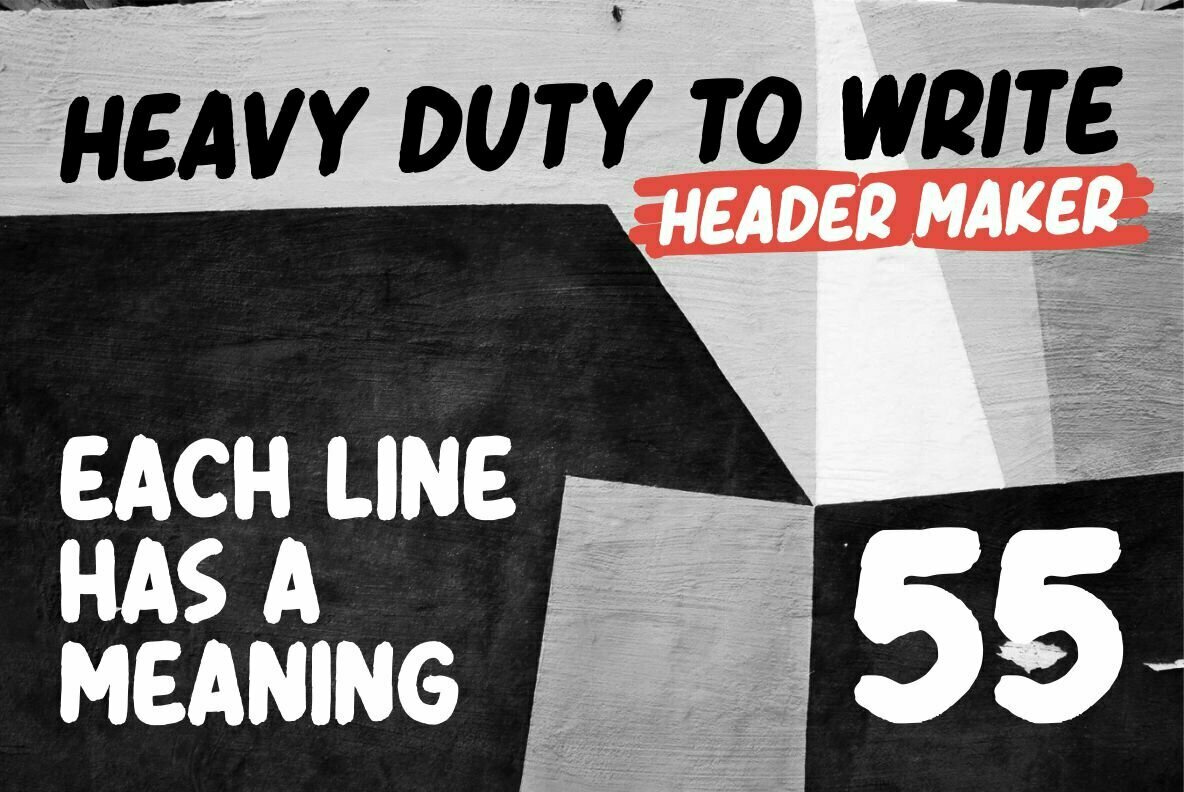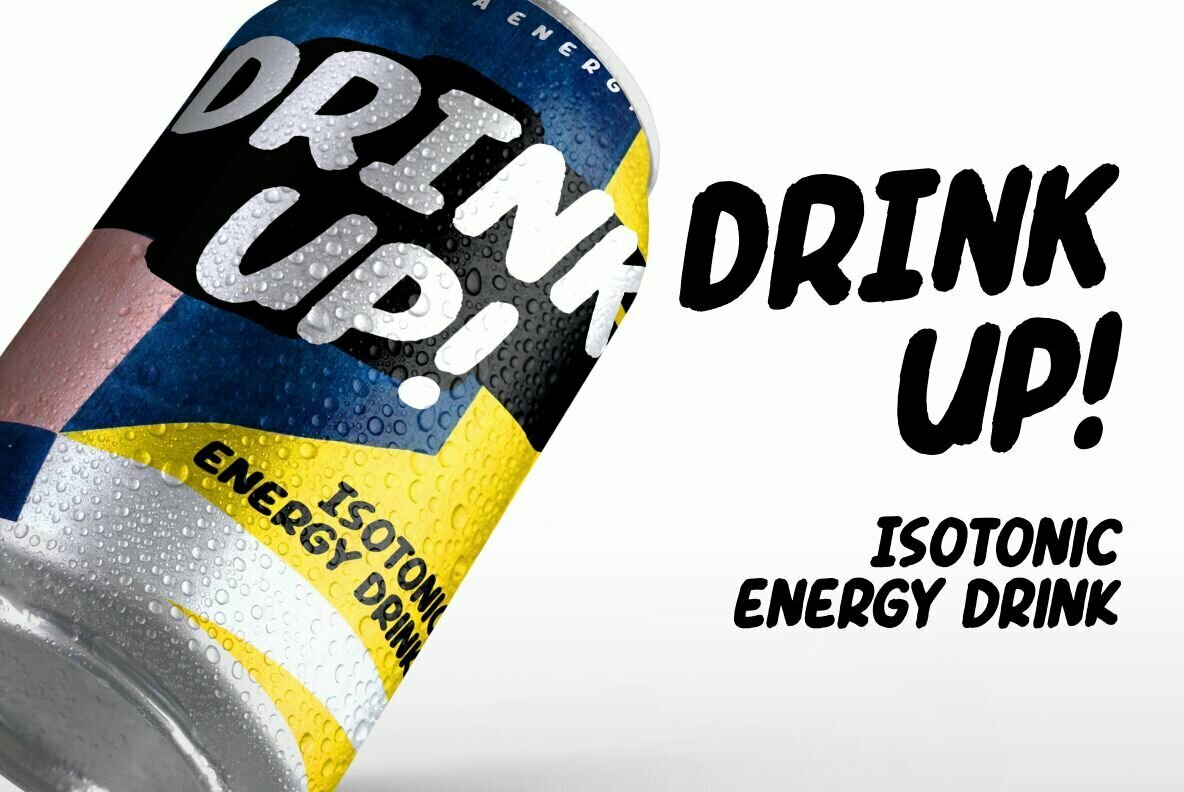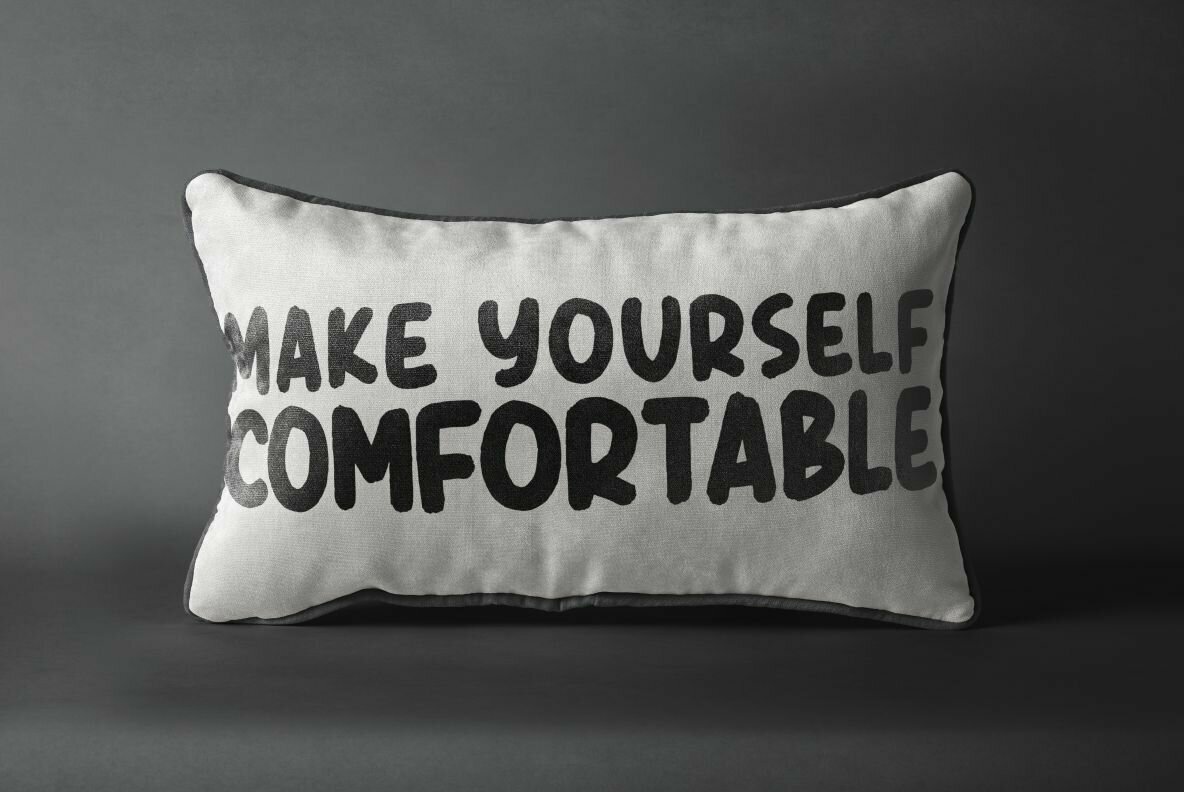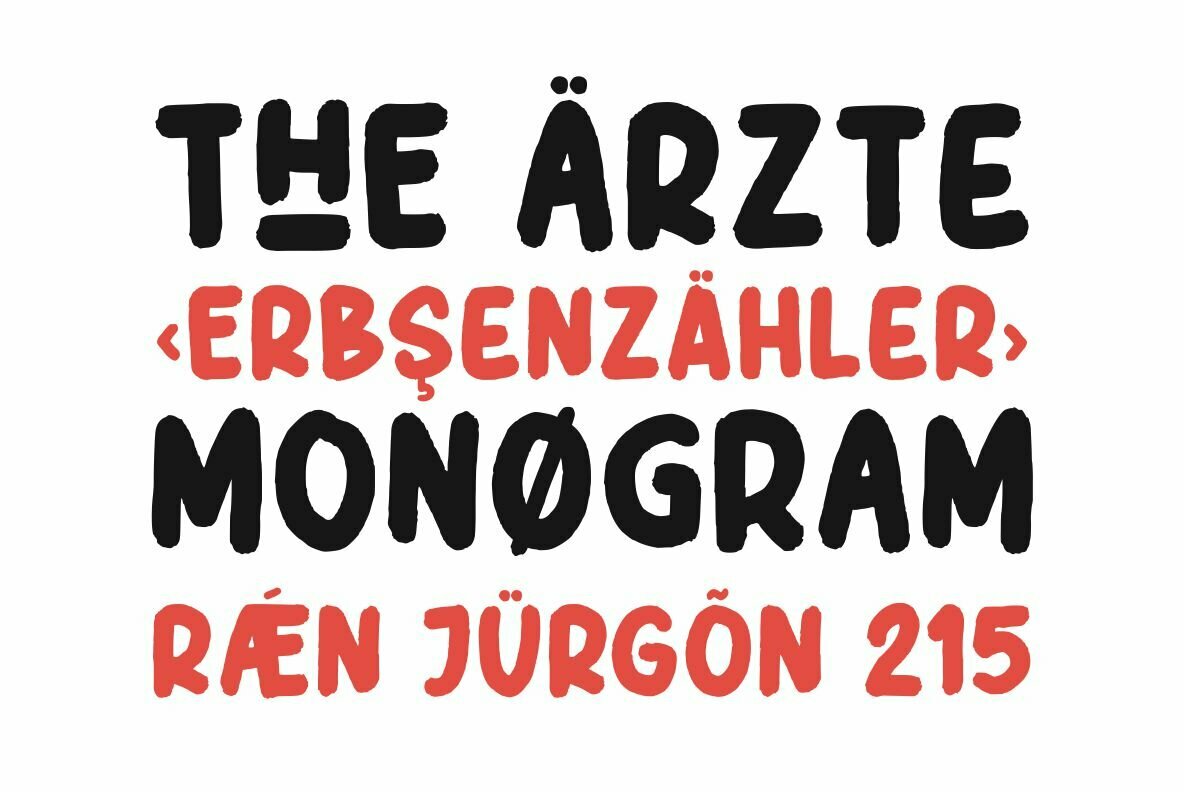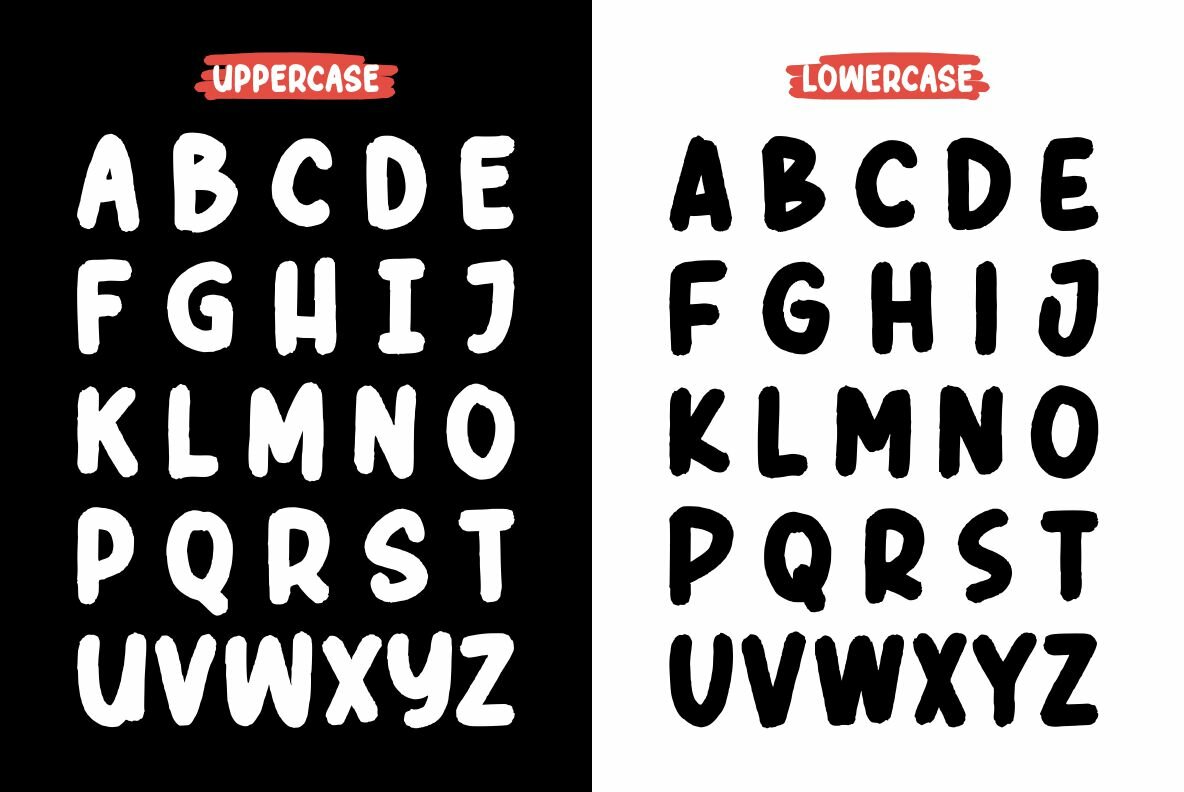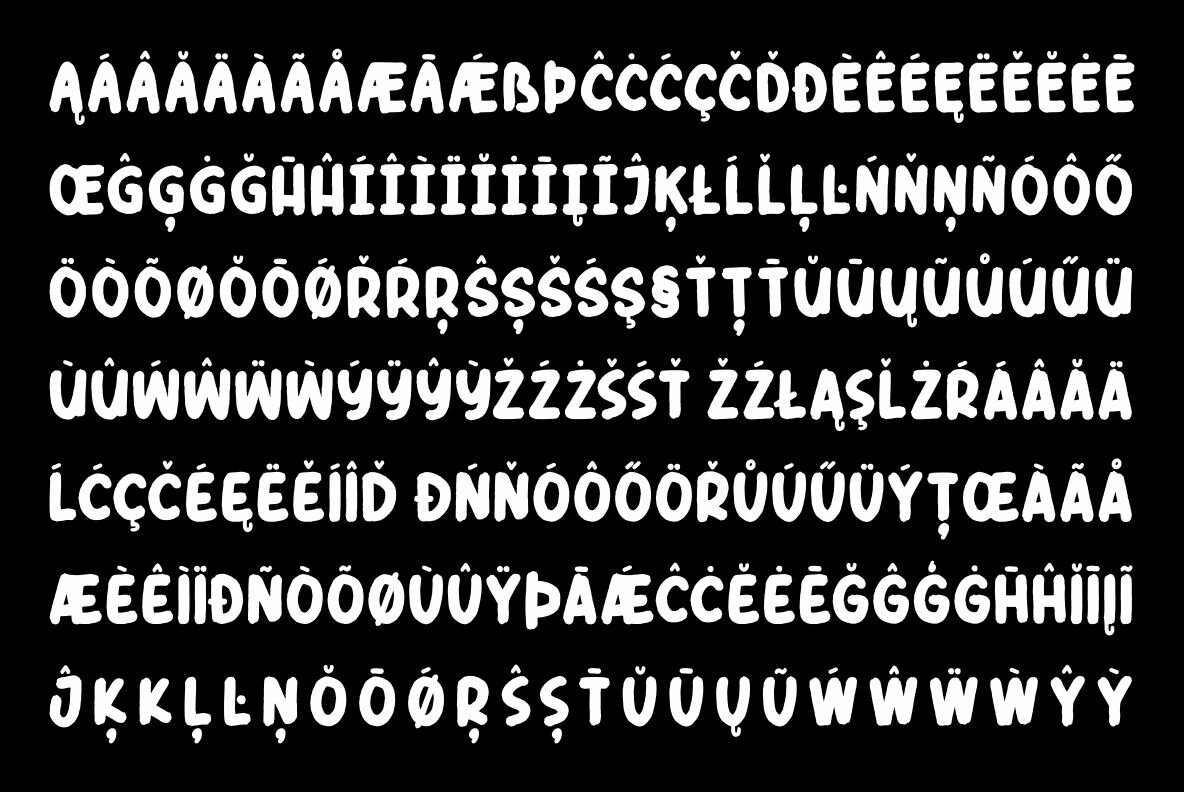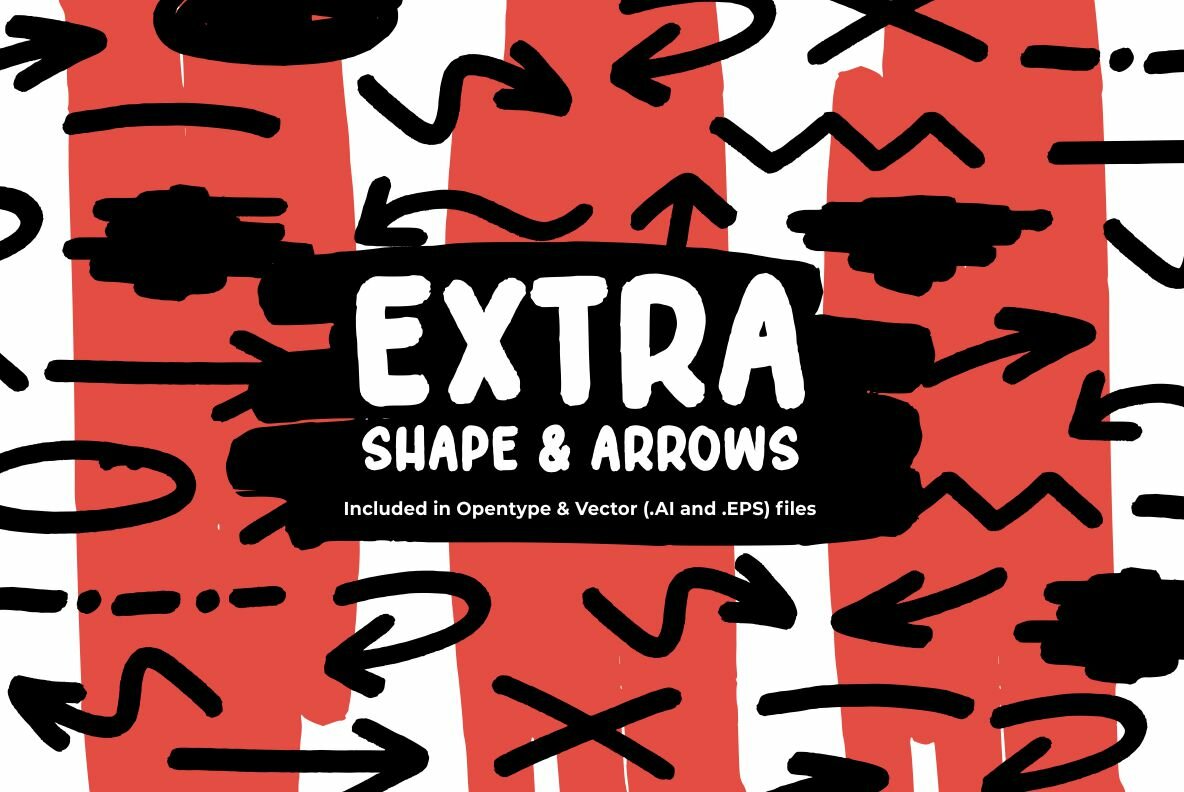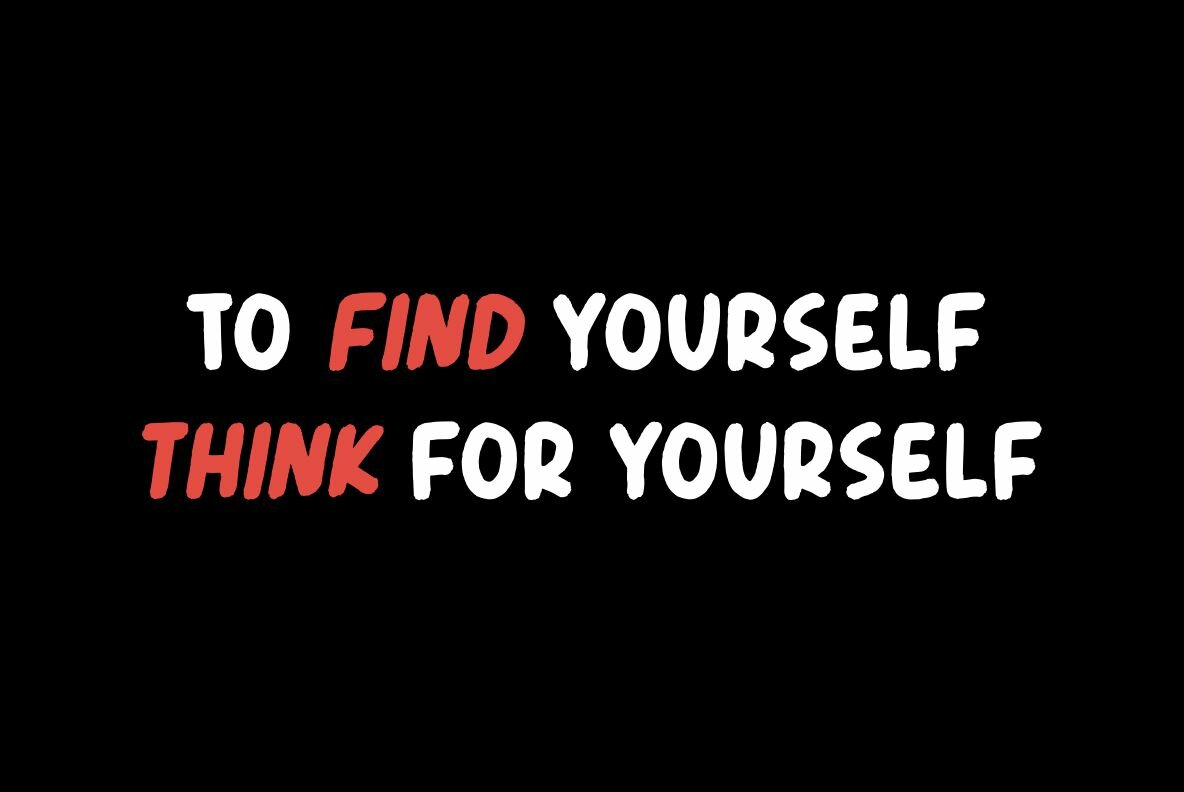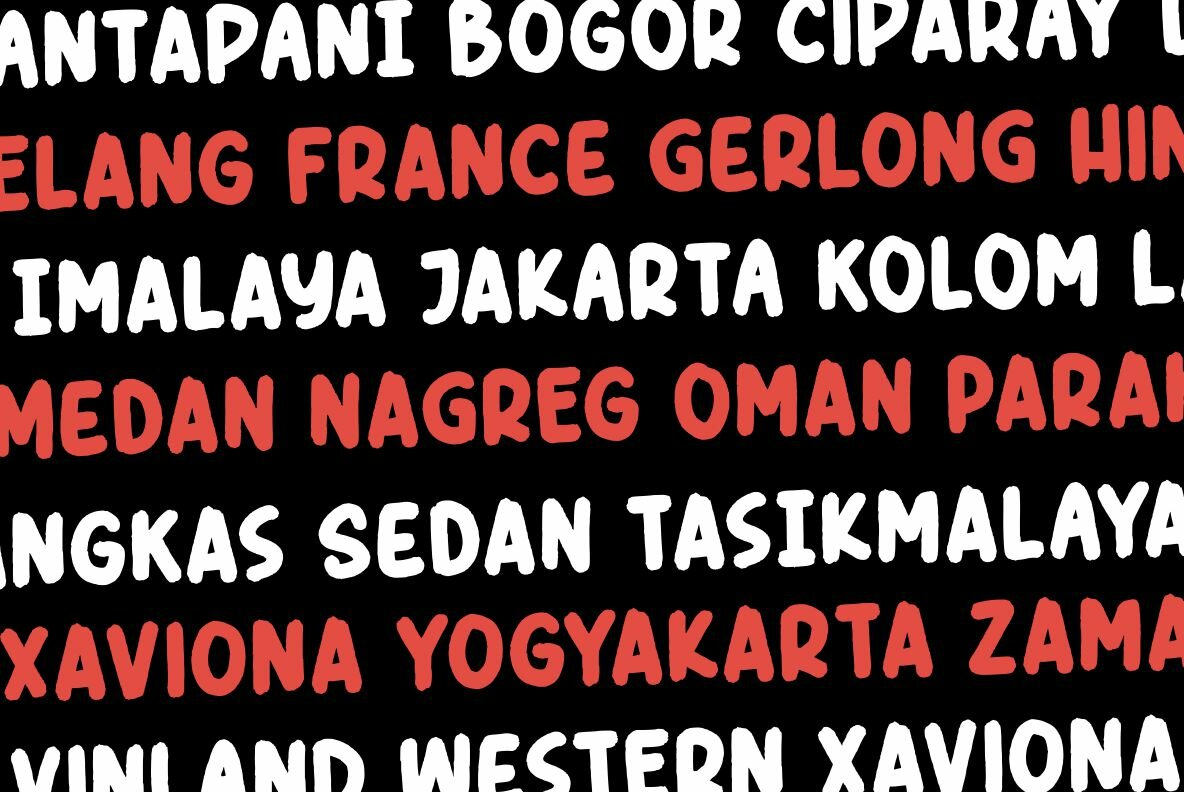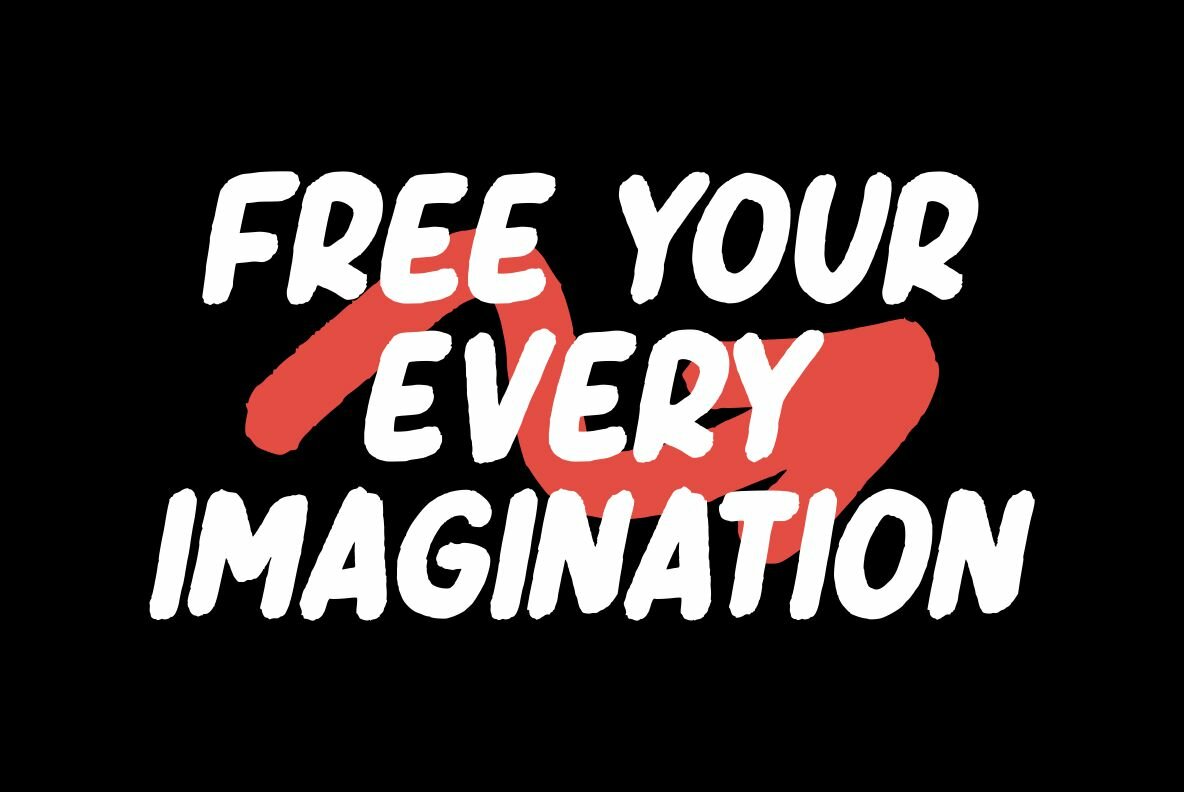
Header Maker Font
Header Maker combines roughs and bold curves with a fresh urban edge; delivering a stylish script which is guaranteed to add an eye-catching appeal to your logo designs, brand imagery, quotes, product packaging, merchandise & social media posts